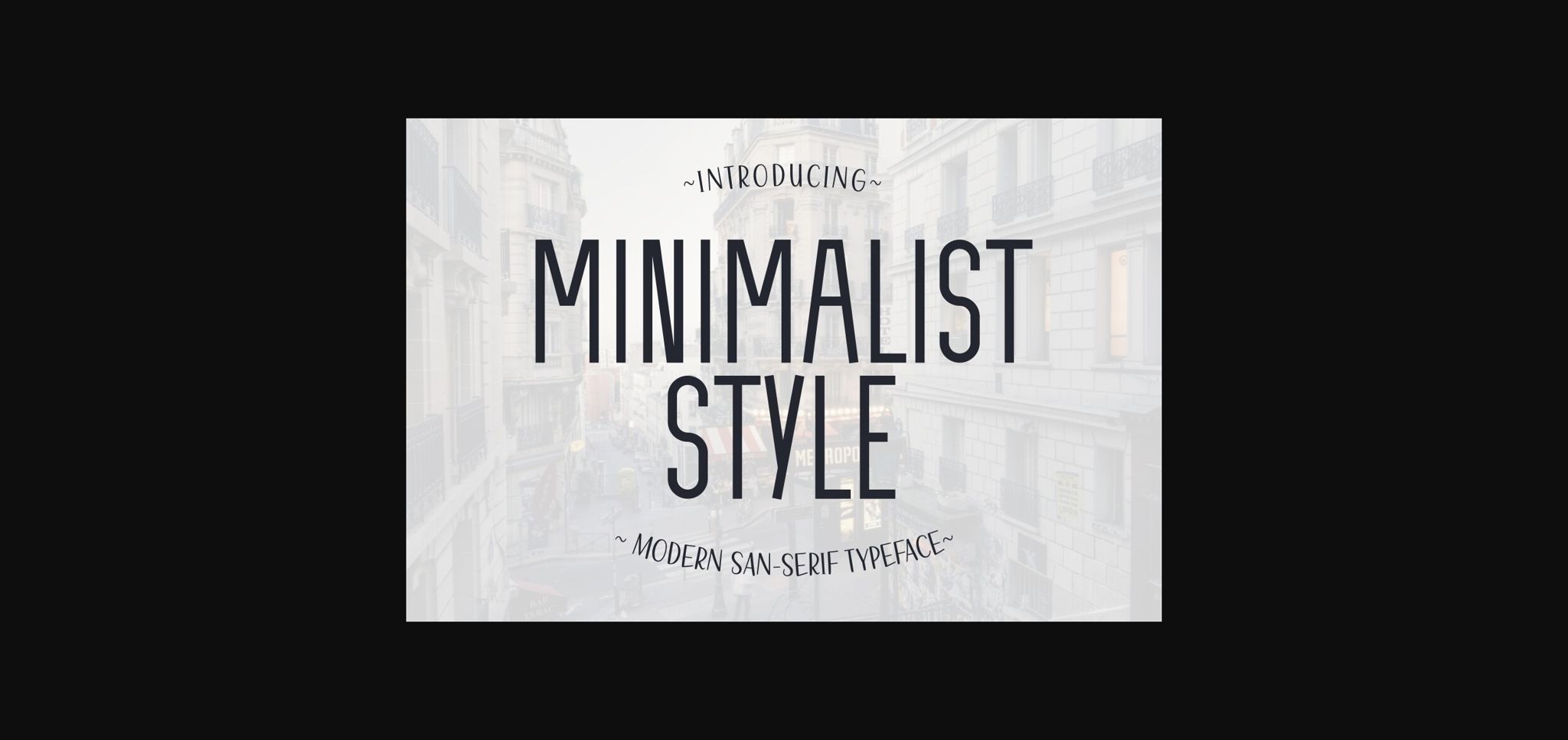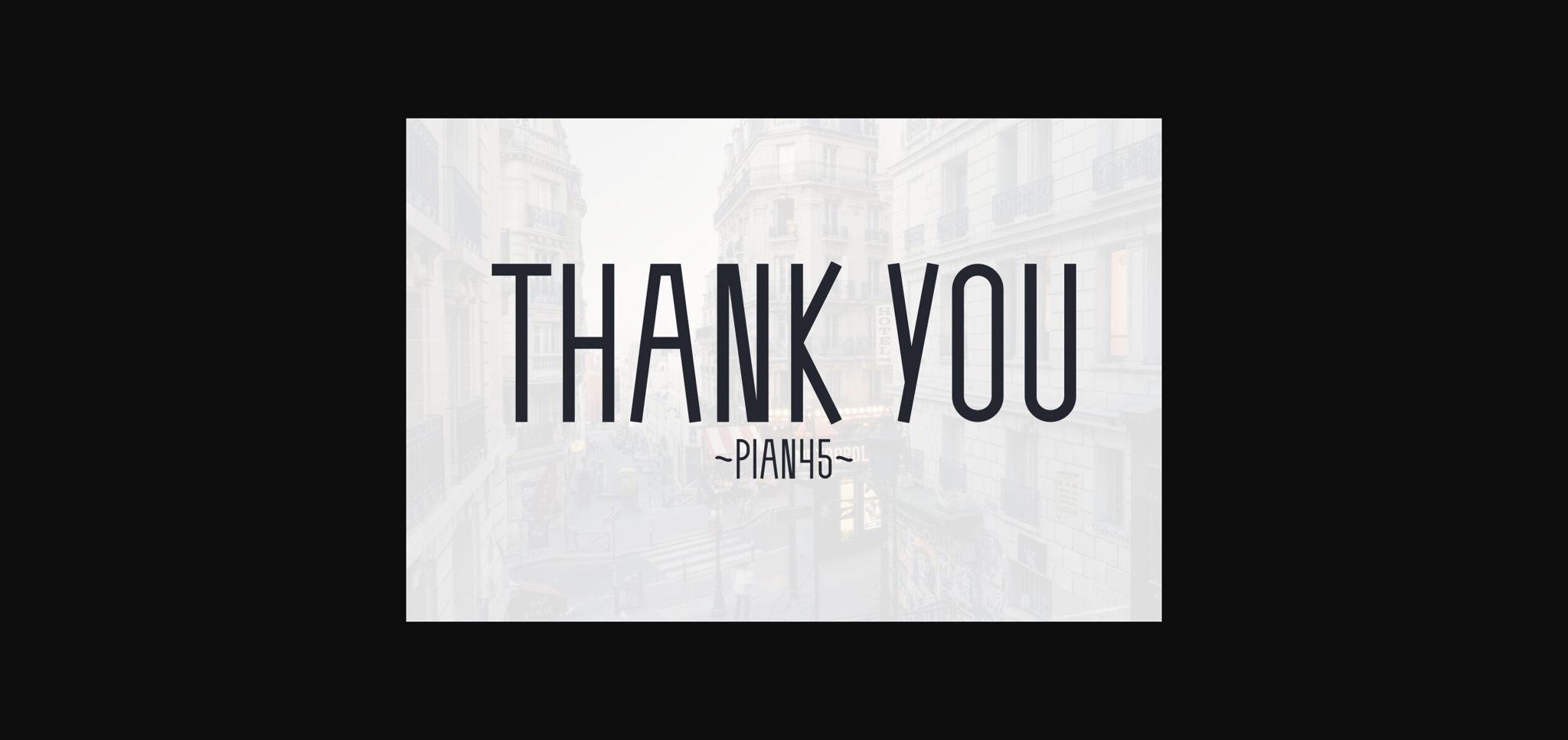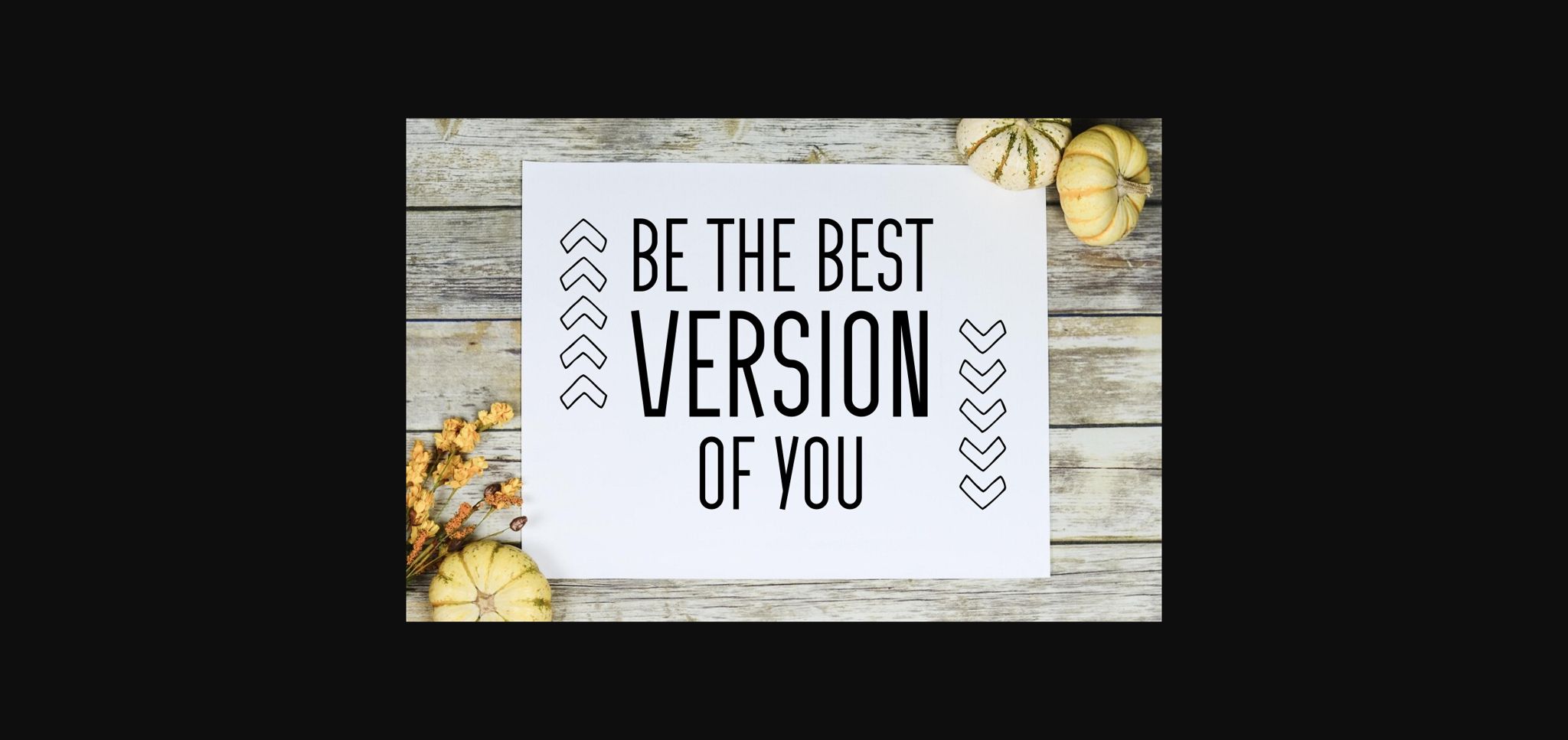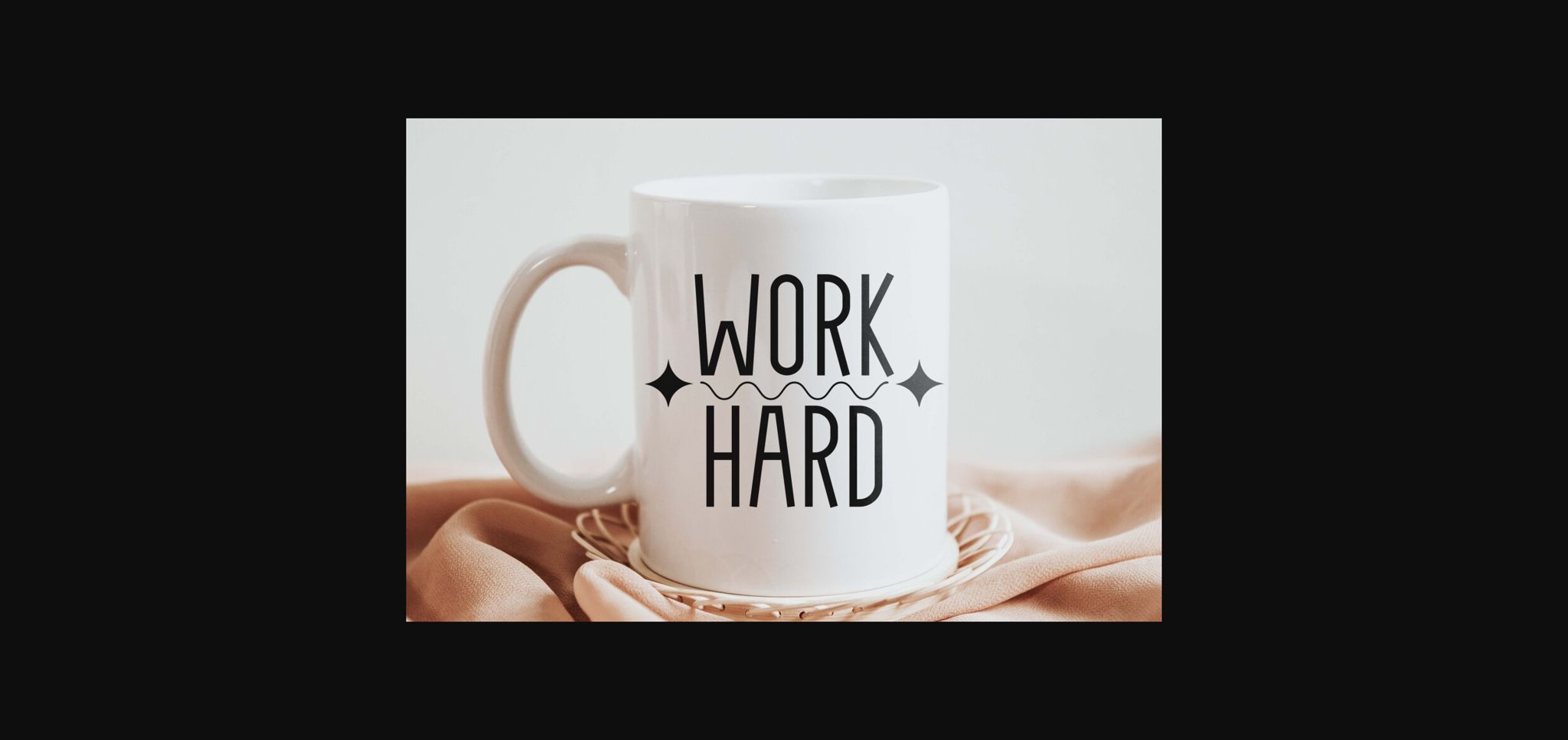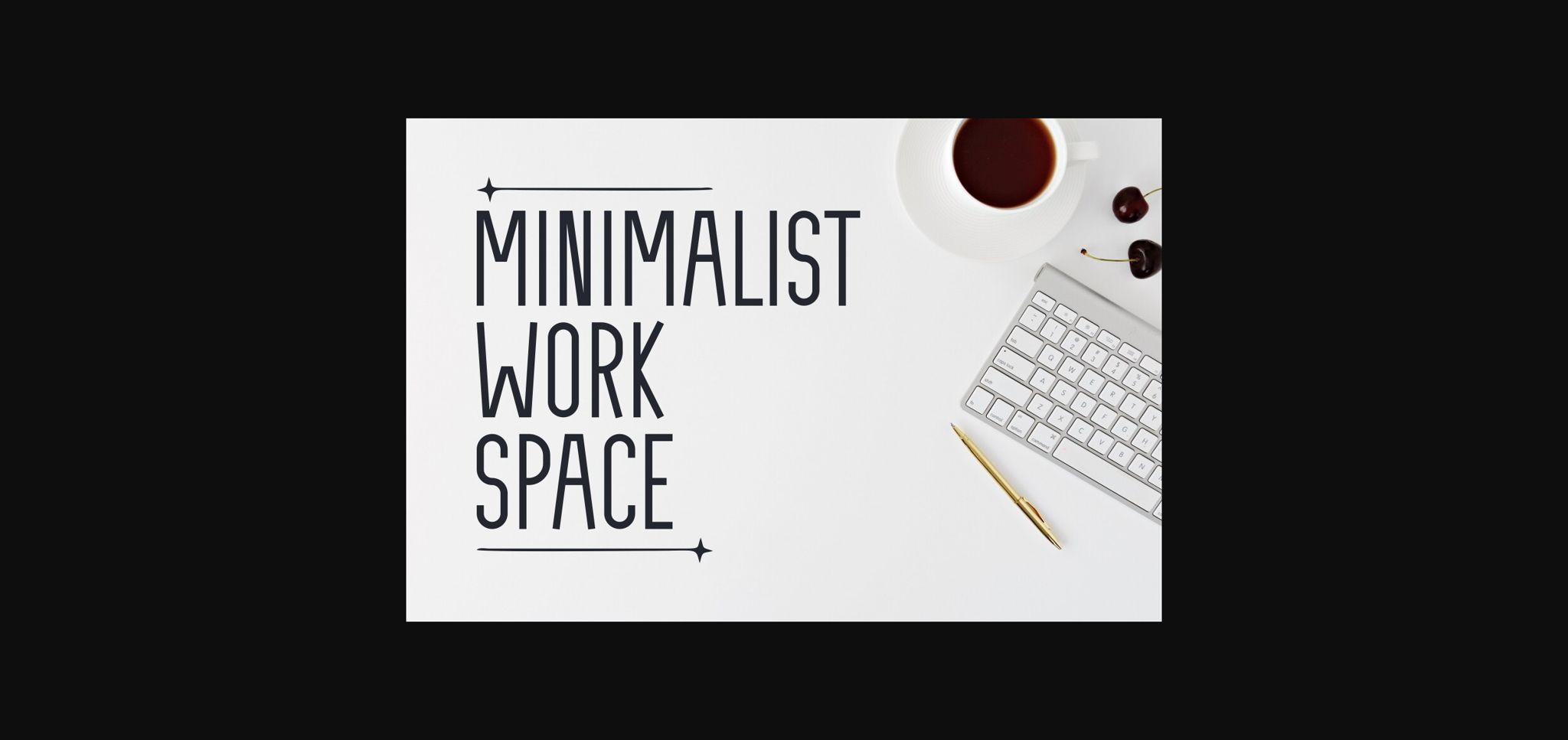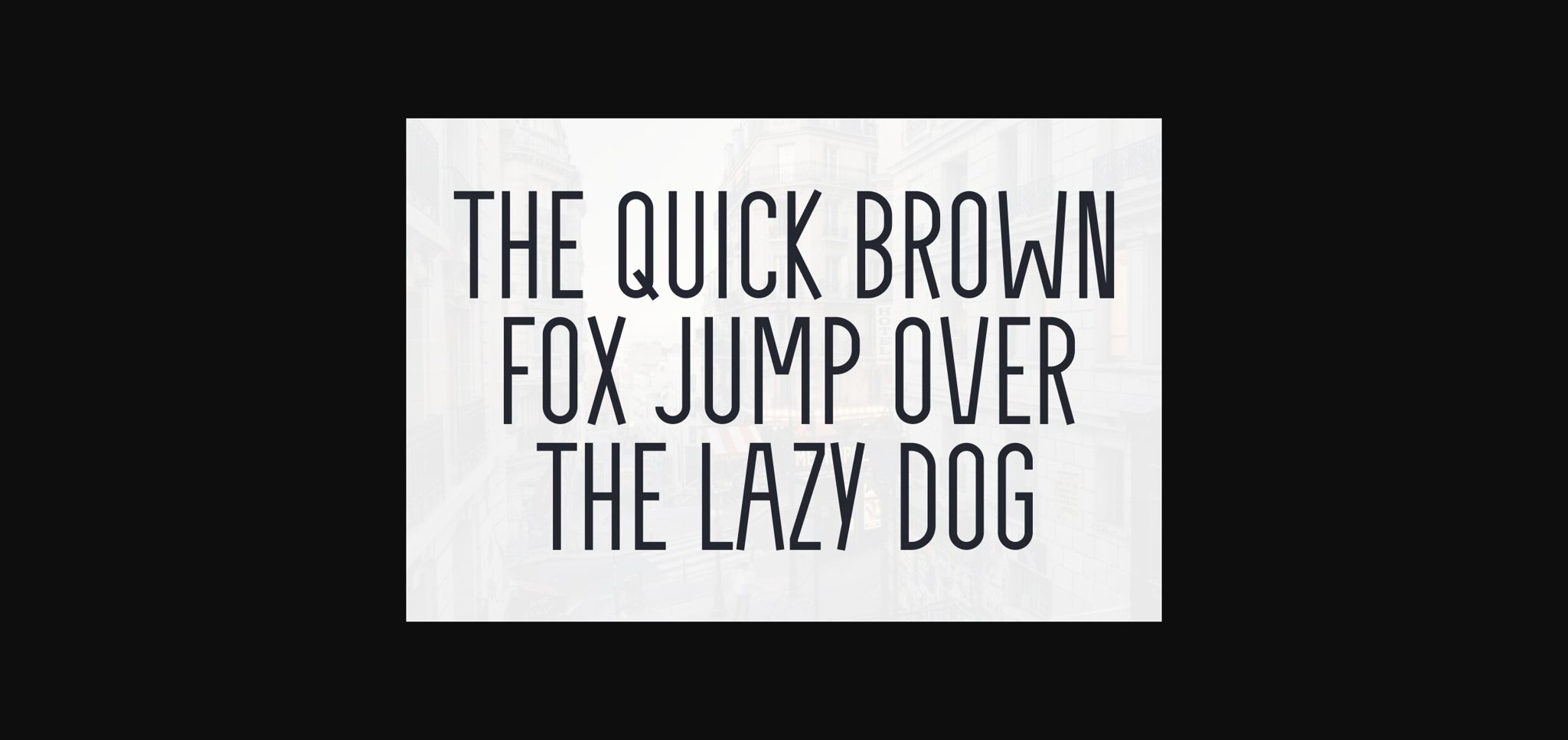
Minimalist Style Font
About Minimalist Style Font
Minimalist Style is a elegance and modern minimalism sans-serif font. Minimalist Style is a harmonious blend of clean lines and refined aesthetics, making it the perfect choice for projects that demand a touch of sophistication with a modern twist.